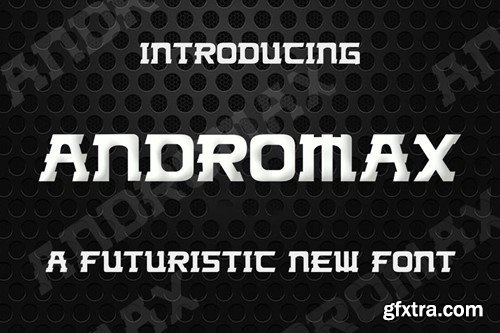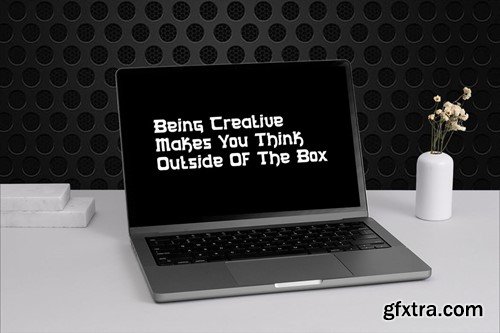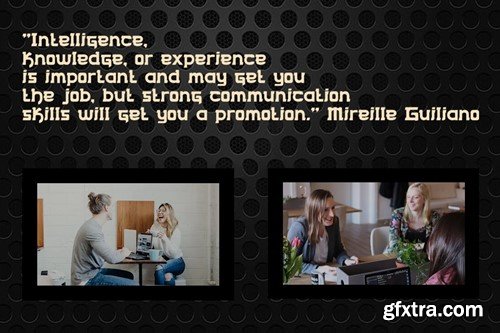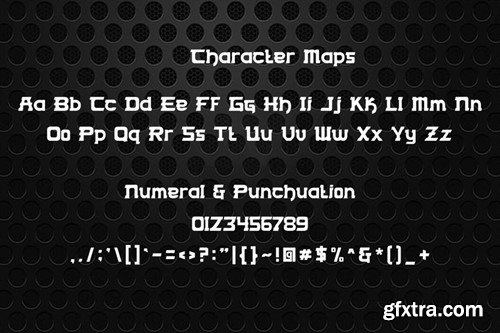
Andromax - Futuristic Font
Proudly present our new product Andromax - Futuristic Font Shanto - Modern Christmas Font is a modern and authentic font. Perfect for both professional and branding needs of a product. This font is suitable for any branding project like quotes, logo, blog header, poster, banding, letter, invitation, stationery, etc... Designed as a versatile and flexible that can be used on a range of projects and mediums. outstanding in a wide range of contexts. Availlable otf ttf Uppercase If you have any queries, questions or issues please don't hesitate to contact us direct. Display and cover image Not include